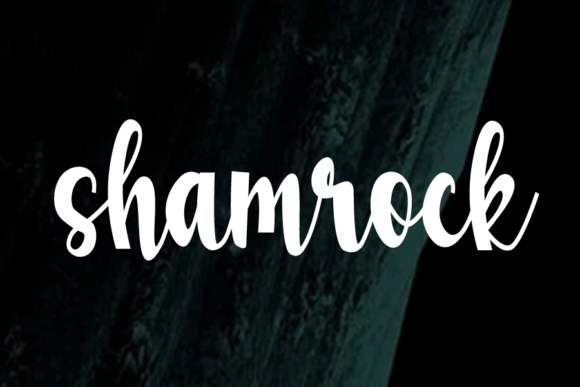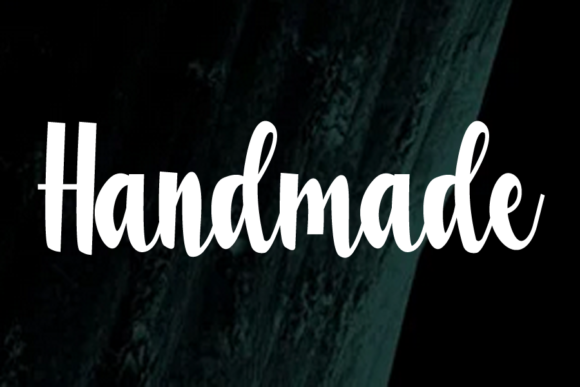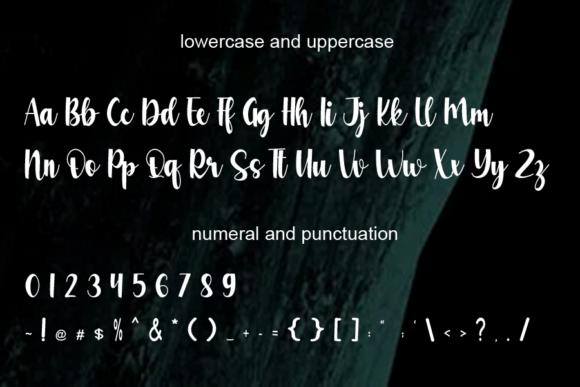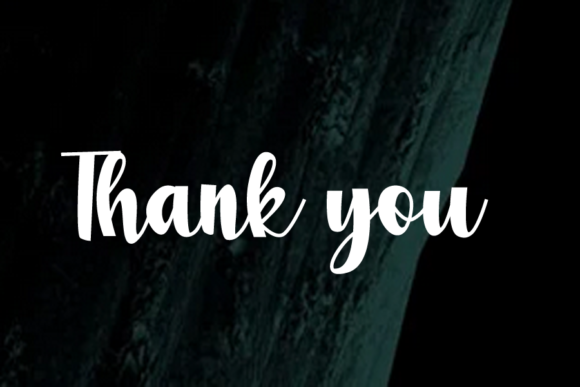
Easter Font: Elevate Your Designs with a Gorgeous Handwritten Script Font
Easter is a stunning handwritten script font that embodies the essence of classic calligraphy. With its smooth and elegant strokes, this font is perfect for designers and crafters looking to add a touch of sophistication to their creations. In this article, we’ll explore the features and benefits of Easter Font, and how it can take your designs to the next level.
What is Easter Font?
Easter Font is a beautiful handwritten script font that boasts a classic calligraphy style. Its smooth and flowing strokes make it an ideal choice for a variety of design projects, from greeting cards and wedding invites to birthday cards and more. This versatile font is designed to work seamlessly with various design software, making it easy to incorporate into your workflow.
Key Features of Easter Font
- Classic Calligraphy Style: Easter Font features a timeless calligraphy style that exudes elegance and sophistication.
- Smooth Strokes: The font’s smooth strokes ensure that your designs look refined and polished.
- Handwritten Script: The handwritten script style of Easter Font adds a personal touch to your designs, making them more relatable and engaging.
- Versatile: This font is perfect for a wide range of design projects, including greeting cards, wedding invites, birthday cards, and more.
Benefits of Using Easter Font
So, why should you choose Easter Font for your designs? Here are just a few benefits of using this gorgeous handwritten script font:
- Adds Elegance to Your Designs: Easter Font’s classic calligraphy style and smooth strokes instantly elevate your designs, adding a touch of sophistication and elegance.
- Enhances Readability: The clear and flowing strokes of this font ensure that your text is easy to read, making it perfect for designs that require a lot of text.
- Increases Creativity: With Easter Font, you can experiment with different design styles and ideas, pushing the boundaries of your creativity.
- Perfect for Various Design Projects: Whether you’re working on a greeting card, wedding invite, or birthday card, Easter Font is an excellent choice.
- Use it for Headings and Titles: Easter Font is perfect for headings and titles, adding a touch of elegance and sophistication to your designs.
Easter Font is a gorgeous handwritten script font that can elevate your designs to the next level. With its classic calligraphy style, smooth strokes, and versatility, this font is perfect for designers and crafters looking to add a touch of elegance and sophistication to their creations. Whether you’re working on a greeting card, wedding invite, or birthday card, Easter Font is an excellent choice. So why wait? Add Easter Font to your creations today and take your designs to new heights!